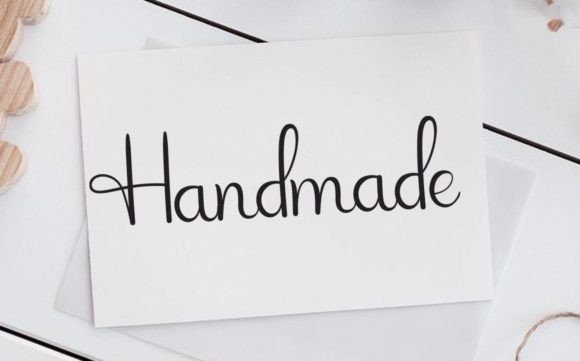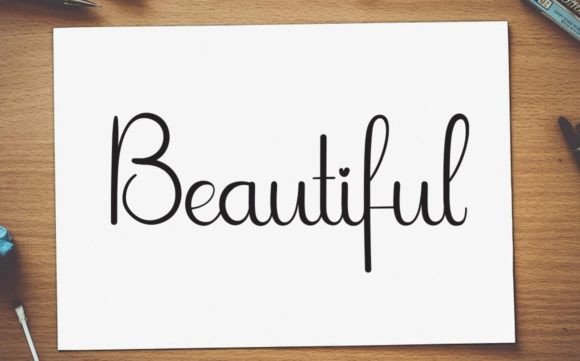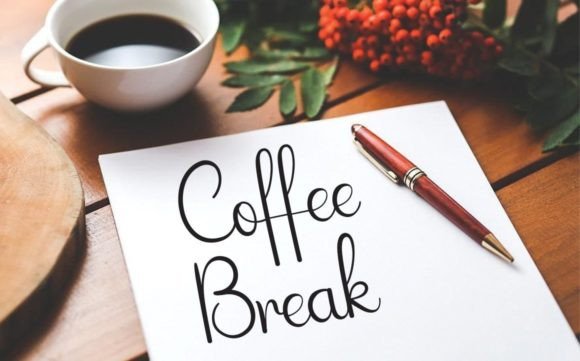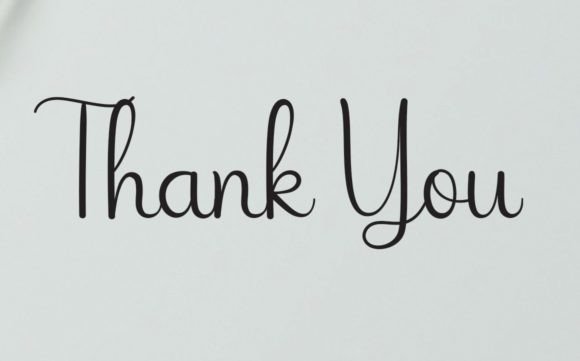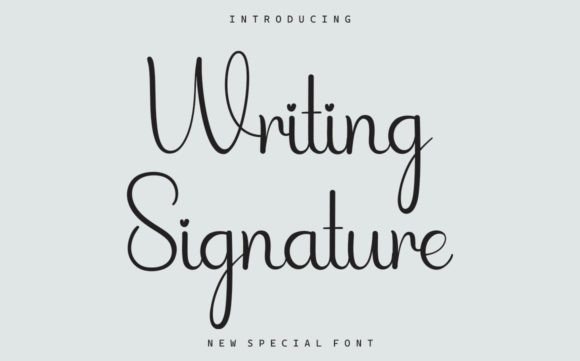
Writing Signature Font
About Writing Signature Font
“Writing Signature” is a captivating handwritten font that exudes charm and elegance. Its versatile nature makes it suitable for a wide array of creative projects, ranging from greeting cards to eye-catching headlines. This font’s romantic and graceful style adds a touch of sophistication to any design it graces.
The flowing and natural strokes of “Writing Signature” give it an authentic handwritten appearance, making it perfect for personalizing your projects and adding a heartfelt touch. Its versatility allows it to enhance various design contexts, making it a popular choice among designers and creatives.
Whether you’re crafting heartfelt greeting cards, designing elegant invitations, or creating stylish headlines for a publication, “Writing Signature” will elevate your work and evoke a sense of intimacy and warmth. Its fluid lines and graceful curves create a sense of movement, adding a dynamic and artistic flair to your typography.
The font’s enchanting quality makes it ideal for projects that require a personal and intimate touch. Whether you’re expressing emotions through words, designing a logo that reflects individuality, or creating a romantic atmosphere in your visuals, “Writing Signature” will capture the essence of your message with its timeless and sophisticated charm.
Embrace the enchantment of “Writing Signature” and let its graceful beauty enhance your next project. Whether you’re working on digital or print materials, this font will add a touch of romance and sophistication, leaving a lasting impression on your audience and creating a memorable visual experience.